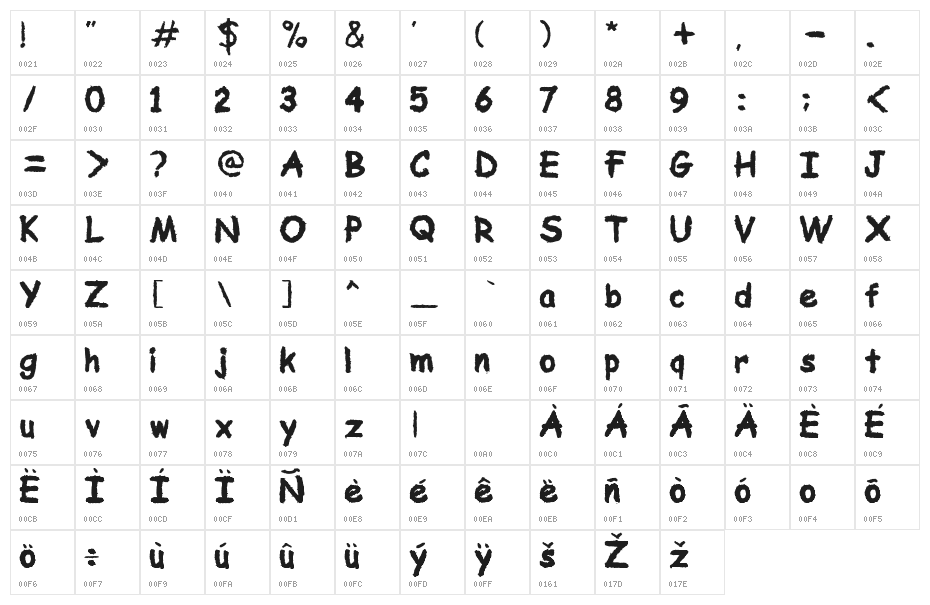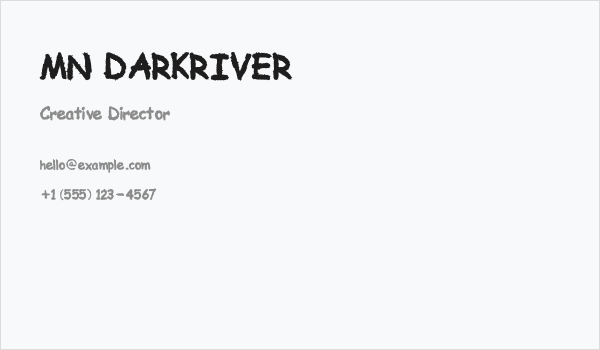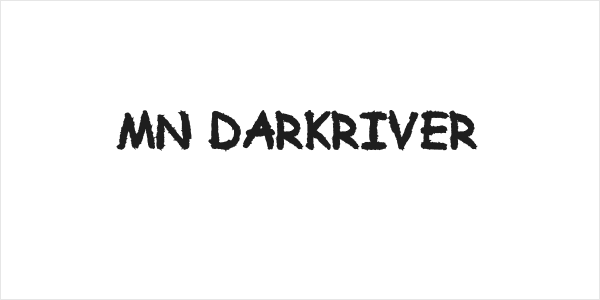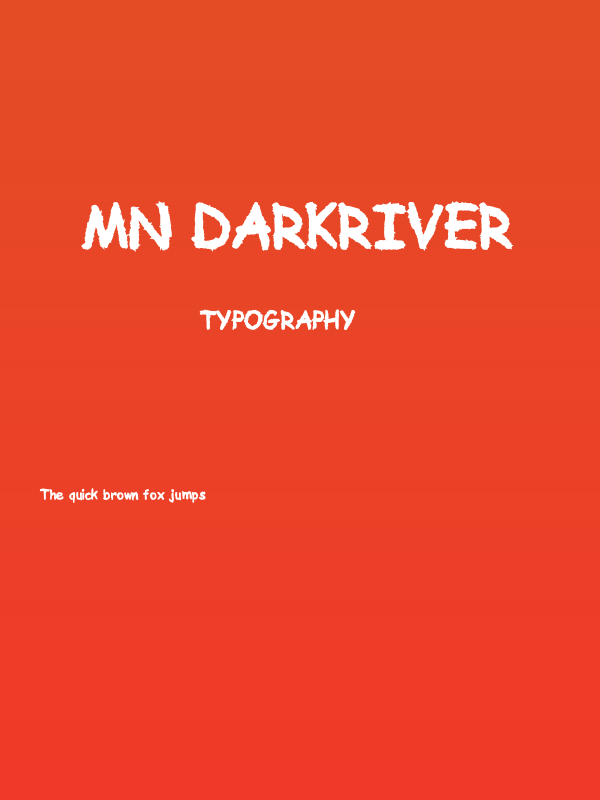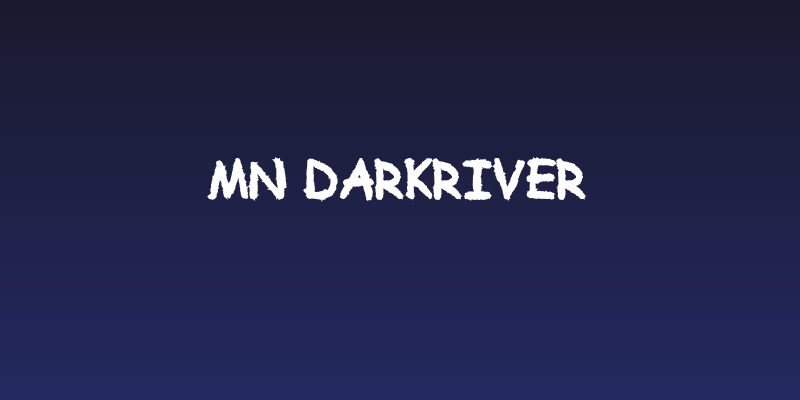
MN DARKRIVER Font
MN DARKRIVER Description
This font features a bold, hand-drawn style with a rough, textured appearance, reminiscent of brush strokes or chalk on a board. The characters are irregular and organic, giving it a dynamic and energetic feel. The uppercase and lowercase letters maintain a consistent style, with rounded edges and varying thickness that add to its informal and artistic look. The numerals and special characters follow the same aesthetic, ensuring a cohesive appearance across all glyphs. This font is ideal for projects that require a personal, handcrafted touch, such as posters, invitations, or artistic branding.
| Proposed Projects | Ideal for posters, invitations, artistic branding, and any project needing a handcrafted touch. |